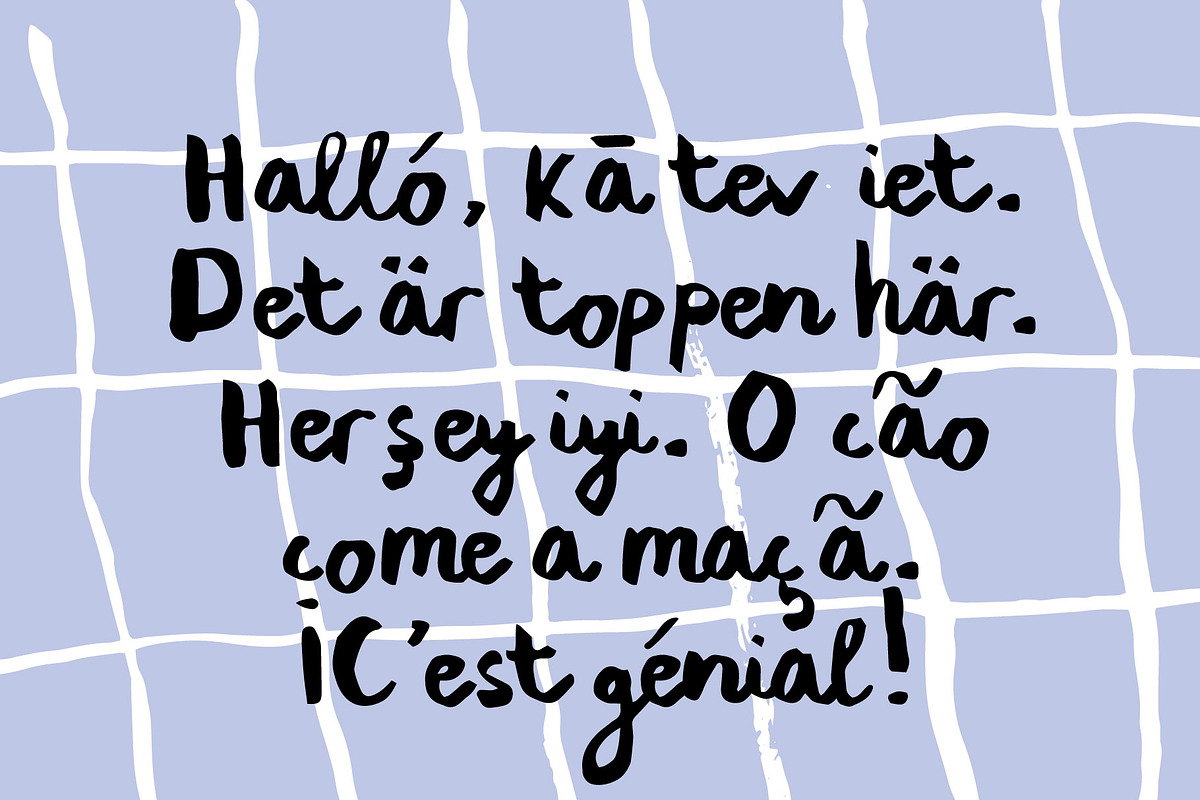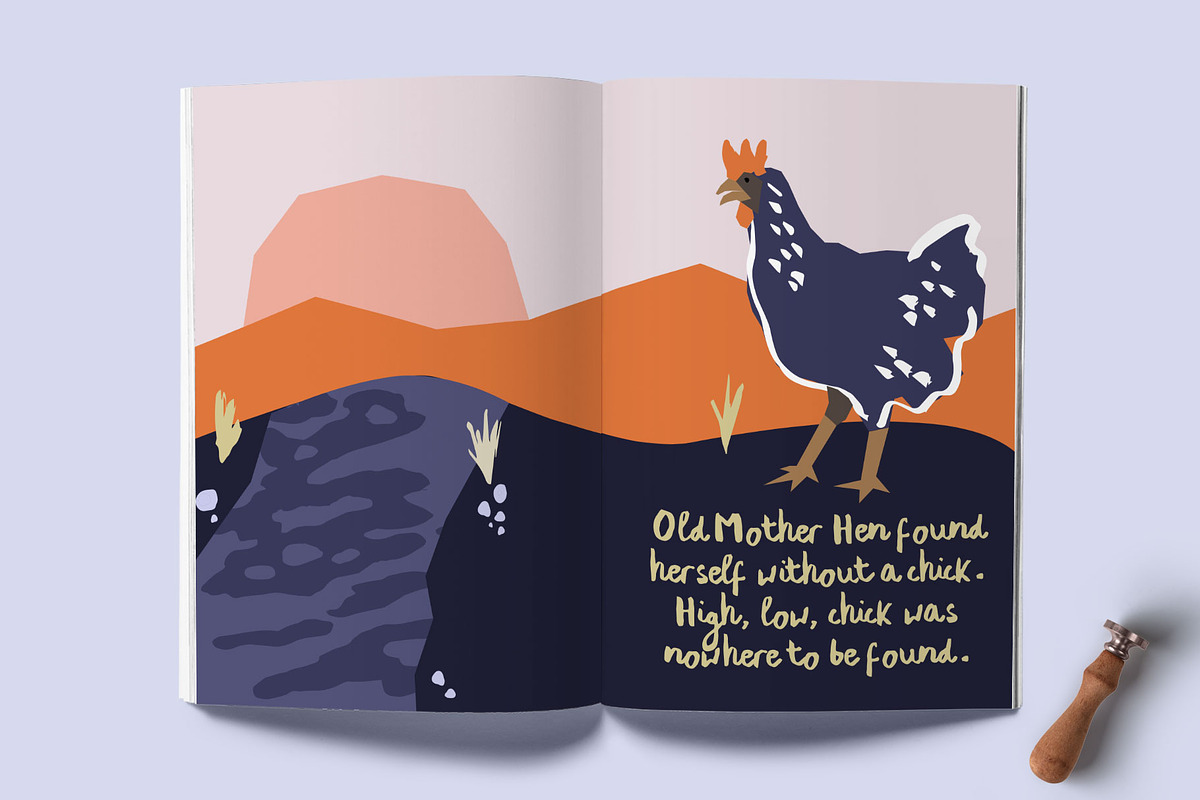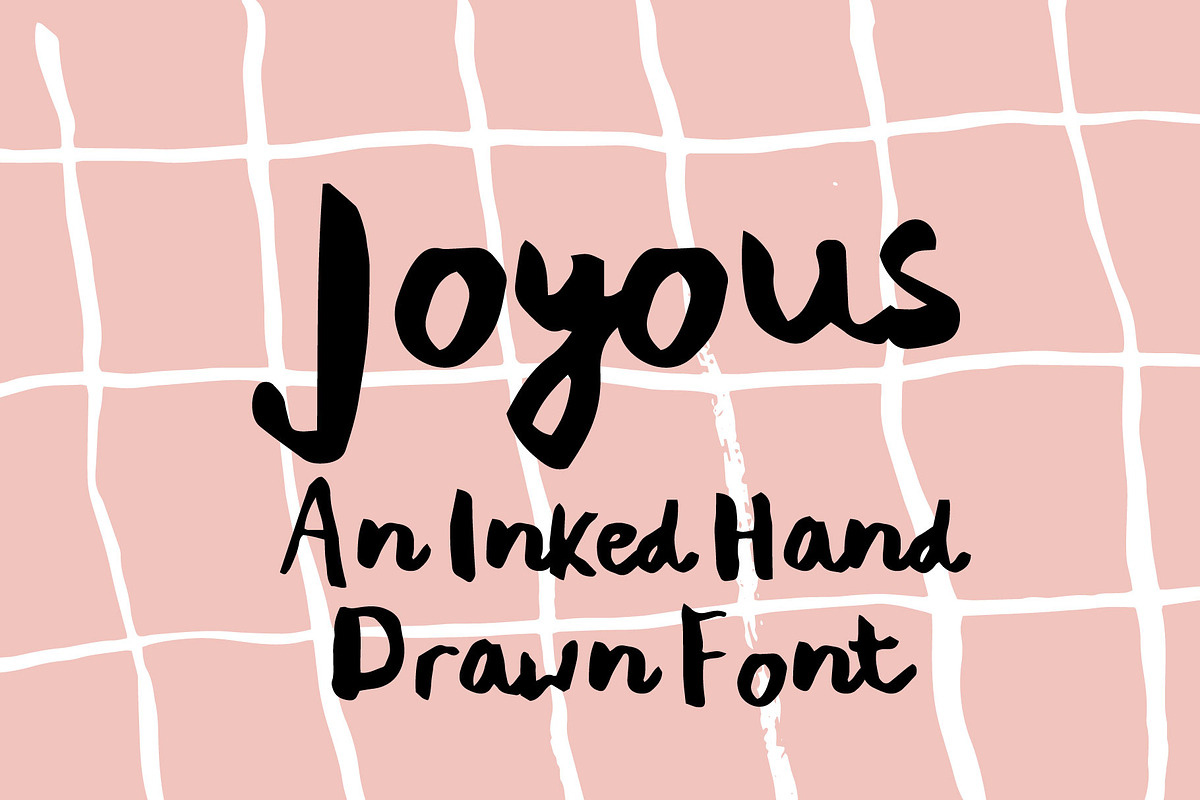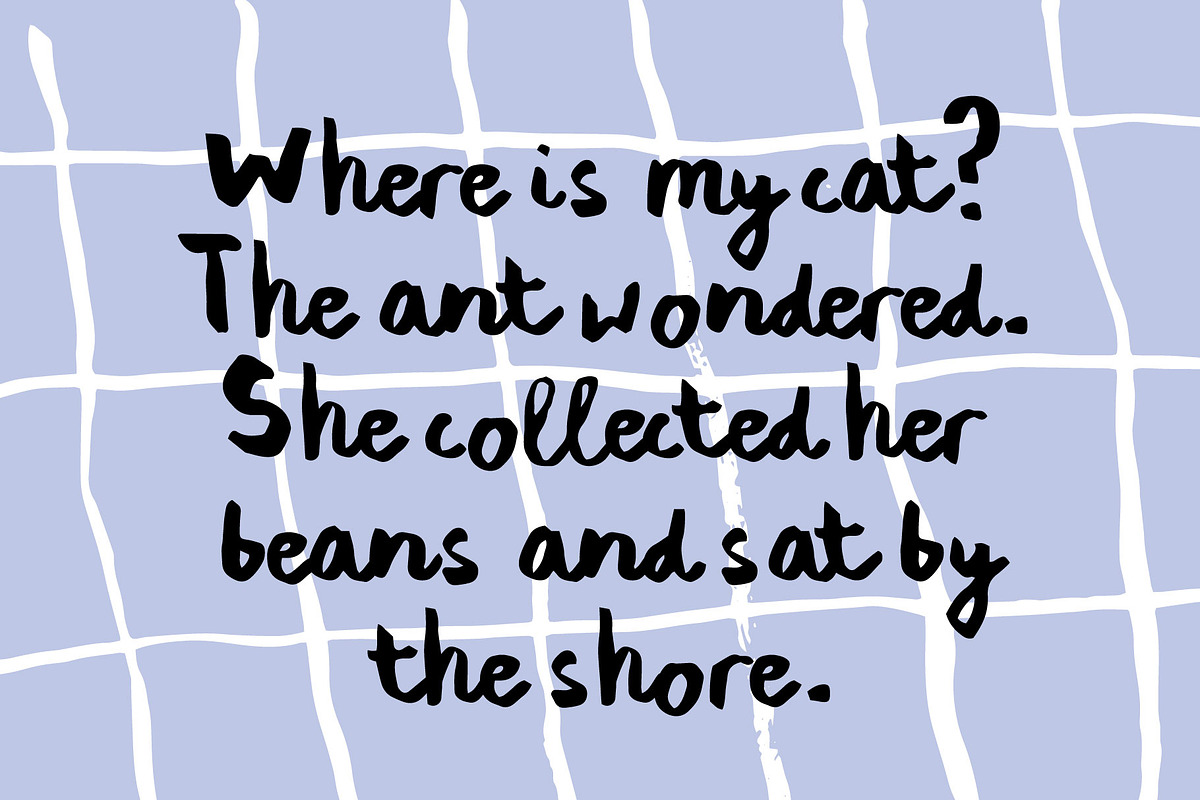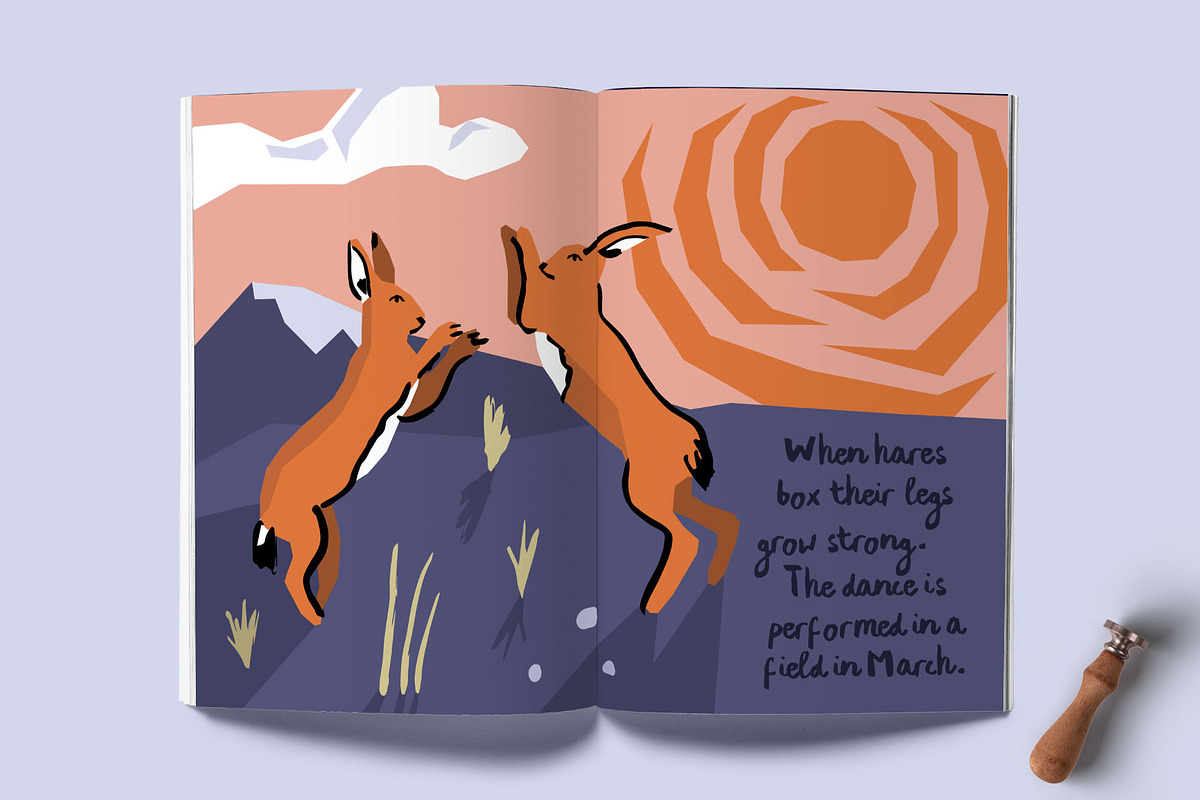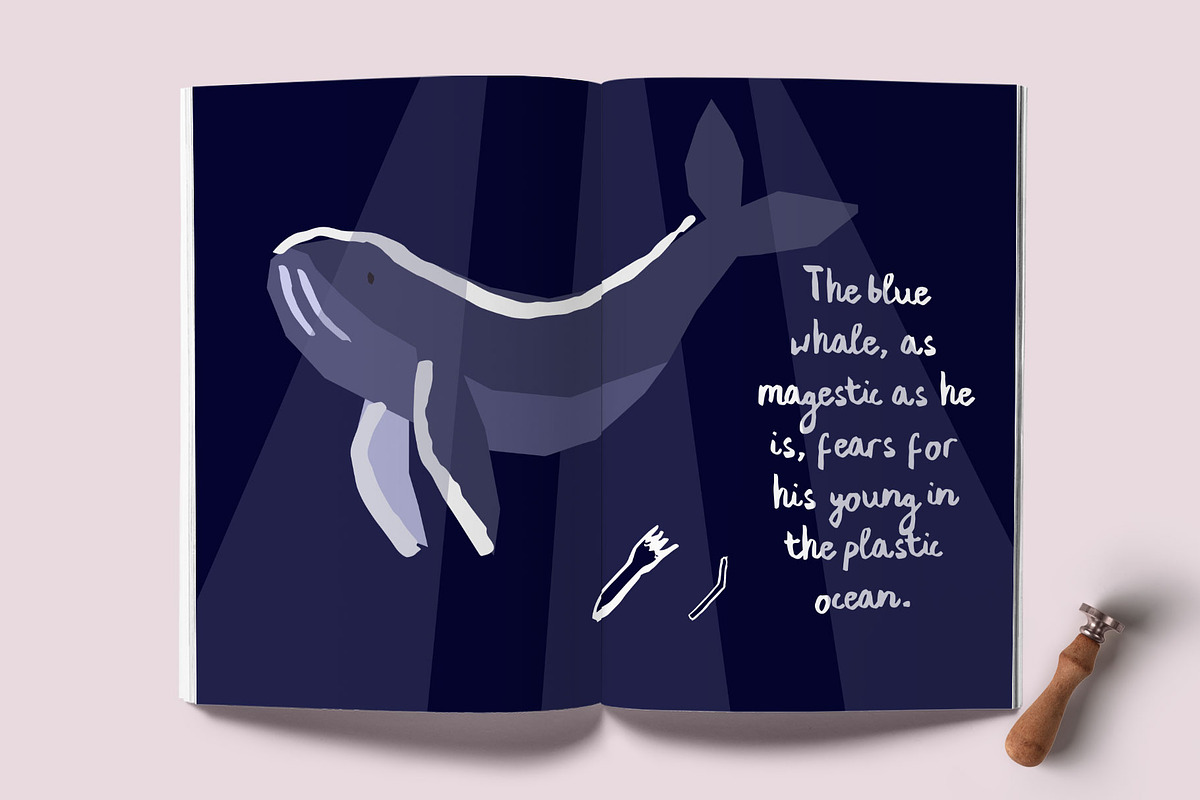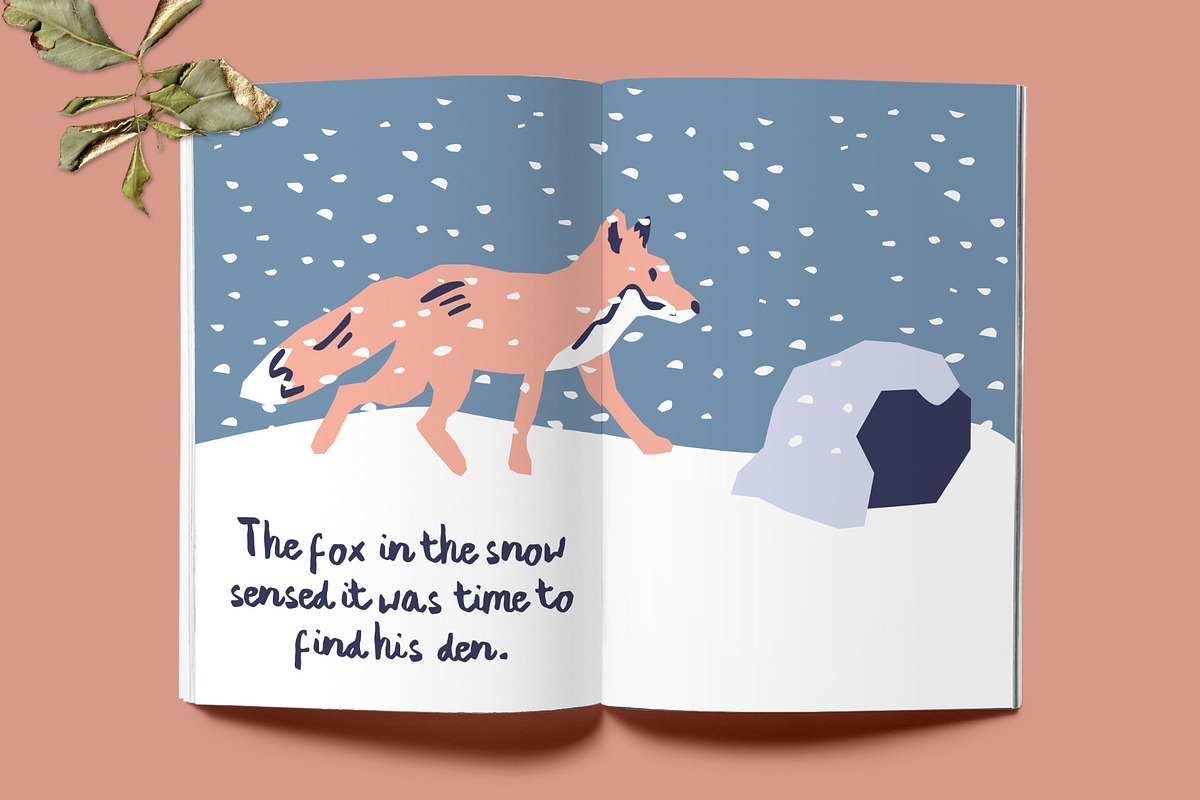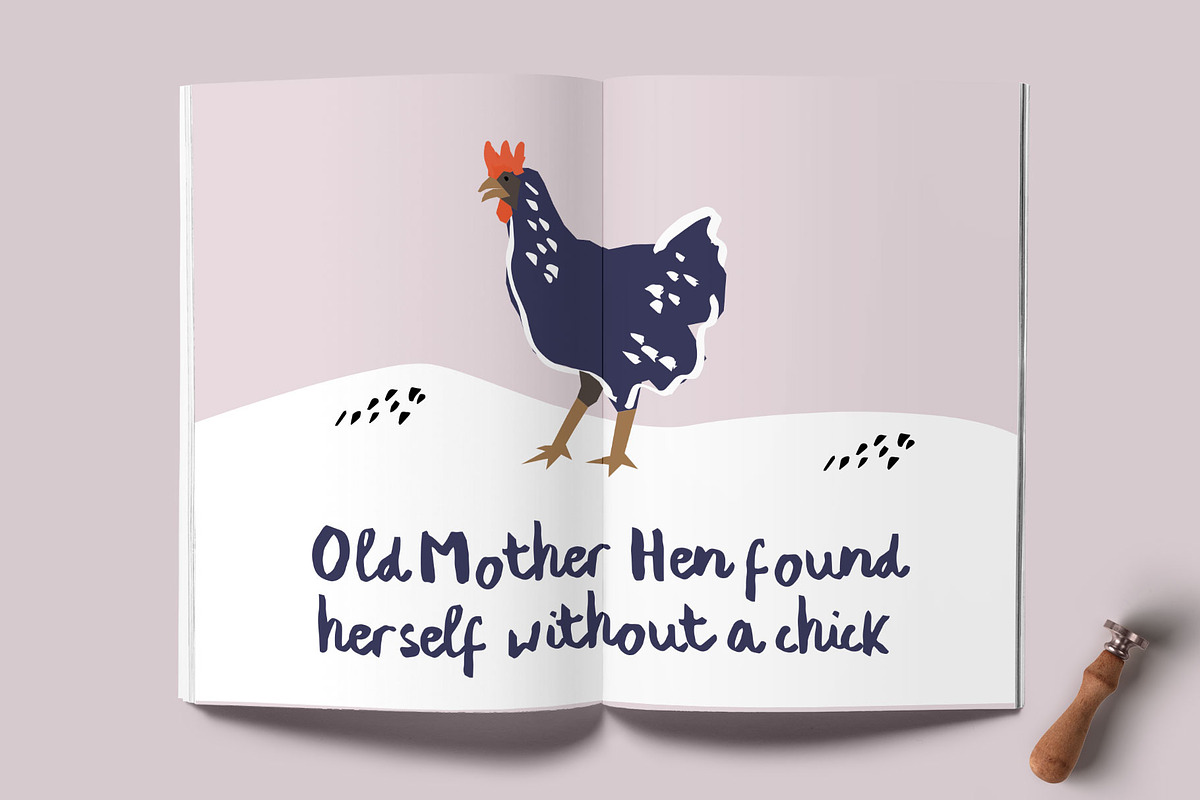
Joyous Inked Hand Drawn Font
A handmade, inked messy script font. Use it for a characterful arty look, perfect for stationary, posters, greeting cards and children's books.
Lower and Upper Caps Characters
punctuation, symbols, numbers
Supports: Danish, Dutch, Finnish, Flemish, German, Icelandic, Irish, Italian, Norwegian, Portuguese, Spanish, Swedish, Basque, Breton, Catalan, Croatian, Czech, Esperanto, Estonian, French, Frisian, Hungarian, Latvian, Lithuanian, Polish, Provençal, Romanian, Sami, Slovenian, Sorbian, Turkish, Welsh, and many others
Joyous Inked Hand Drawn Font by Emma Make fits naturally into Branding, posters, packaging, typography.